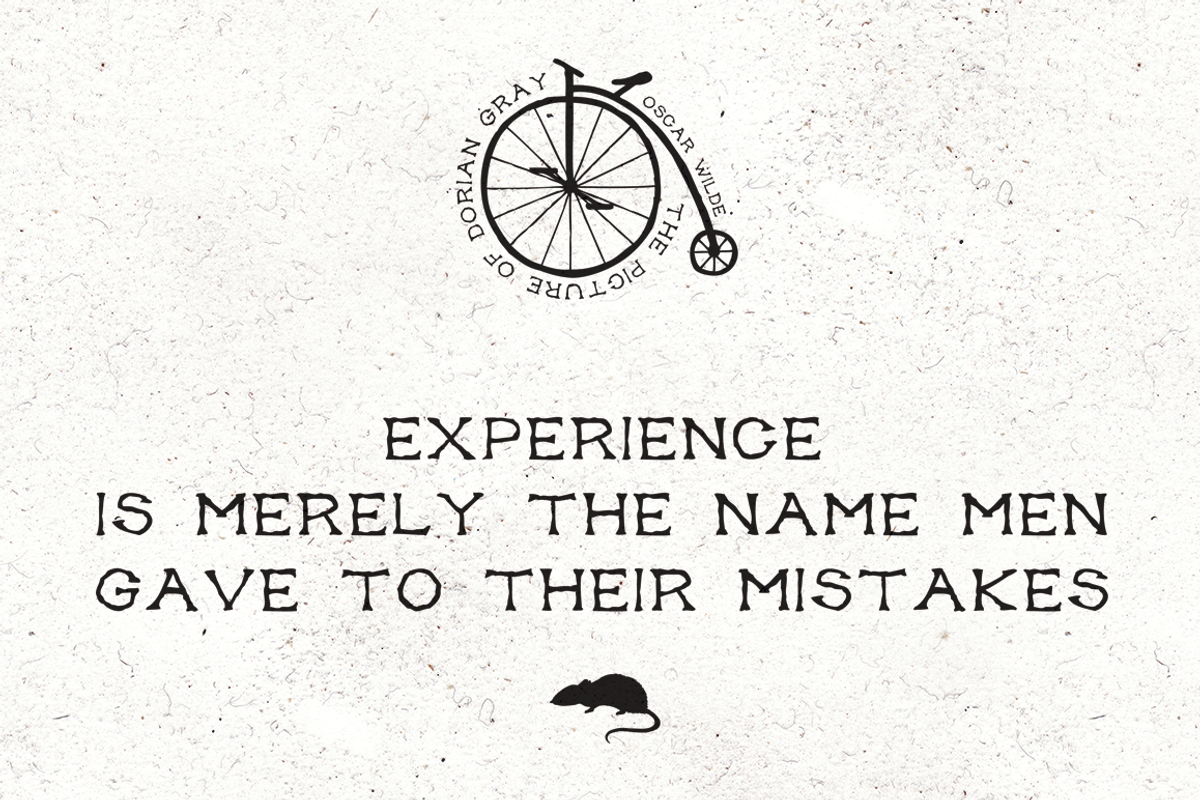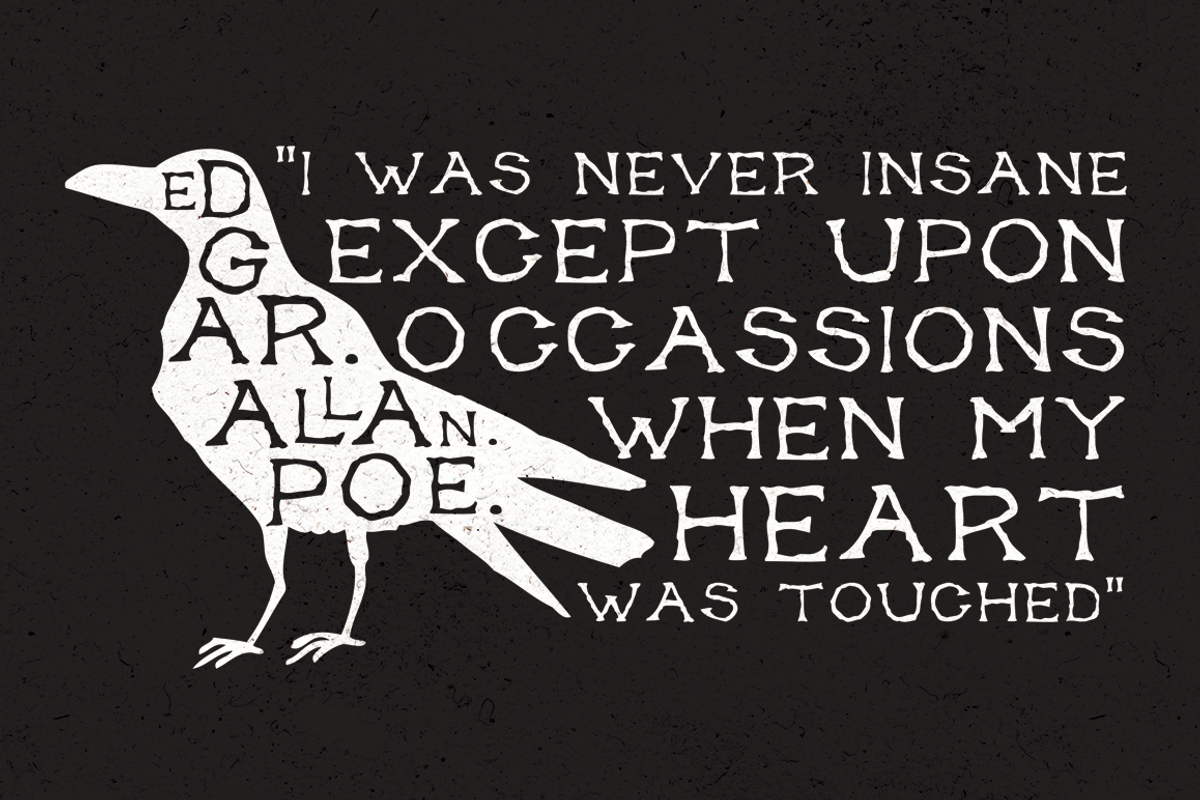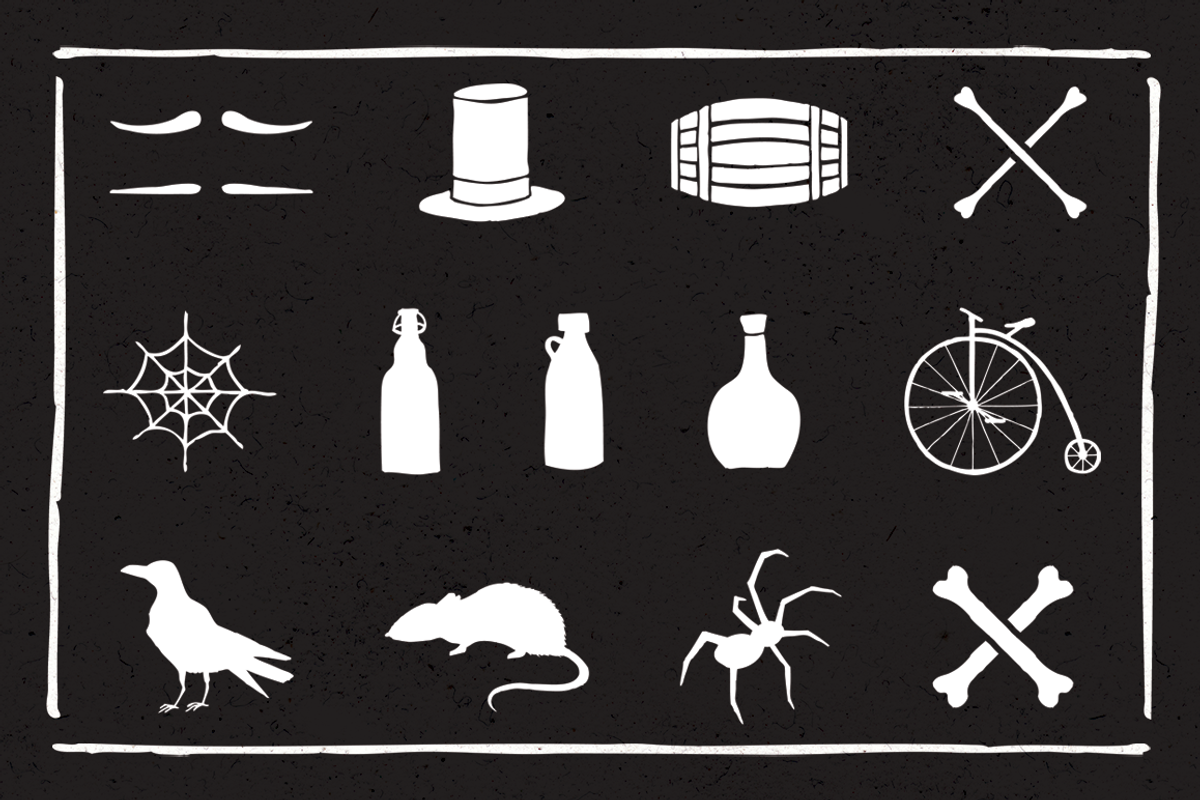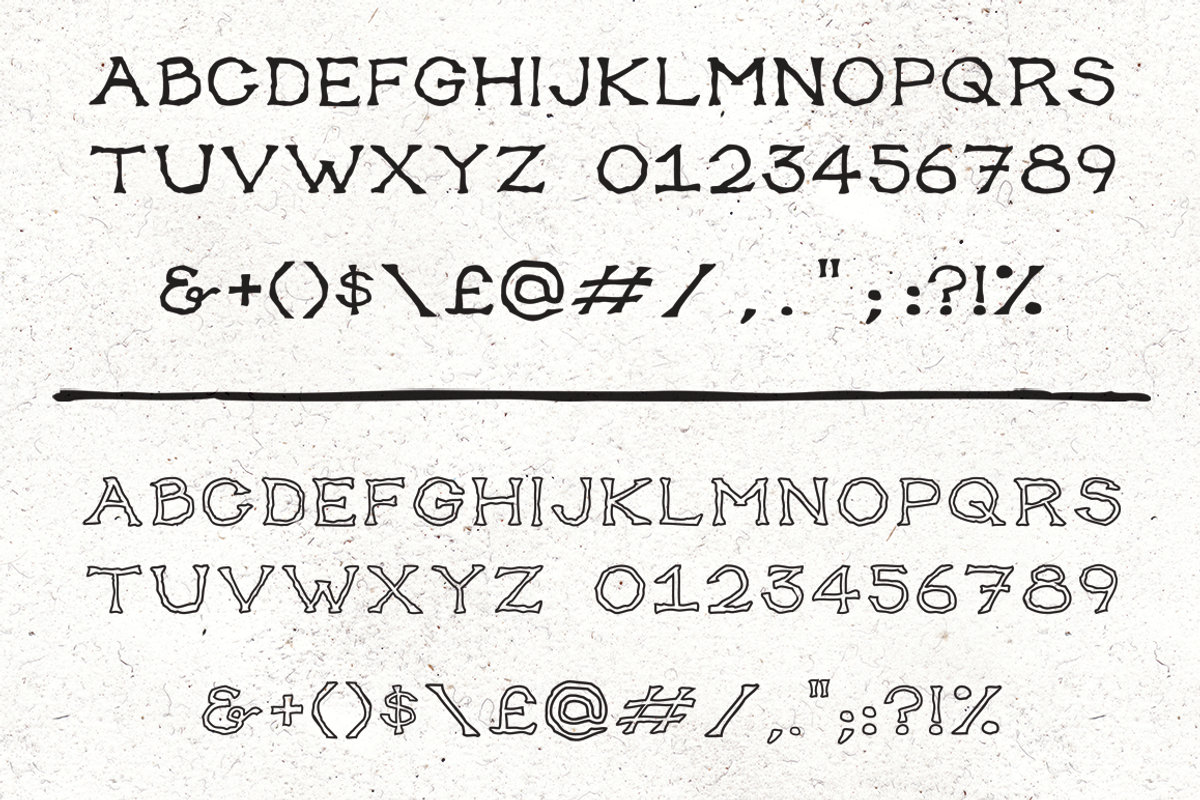
Gentleman's Poison Font (2 versions)
Gentleman's Poison Font (2 versions) by Design Surplus is a font selected for branding, posters, packaging, typography.
- 14 hand drawn victorian vector icons are also included with Gentleman's Poison.
Why Gentleman's Poison Font (2 versions) is worth a look
Gentleman's Poison Font (2 versions) by Design Surplus fits naturally into Branding, posters, packaging, typography.